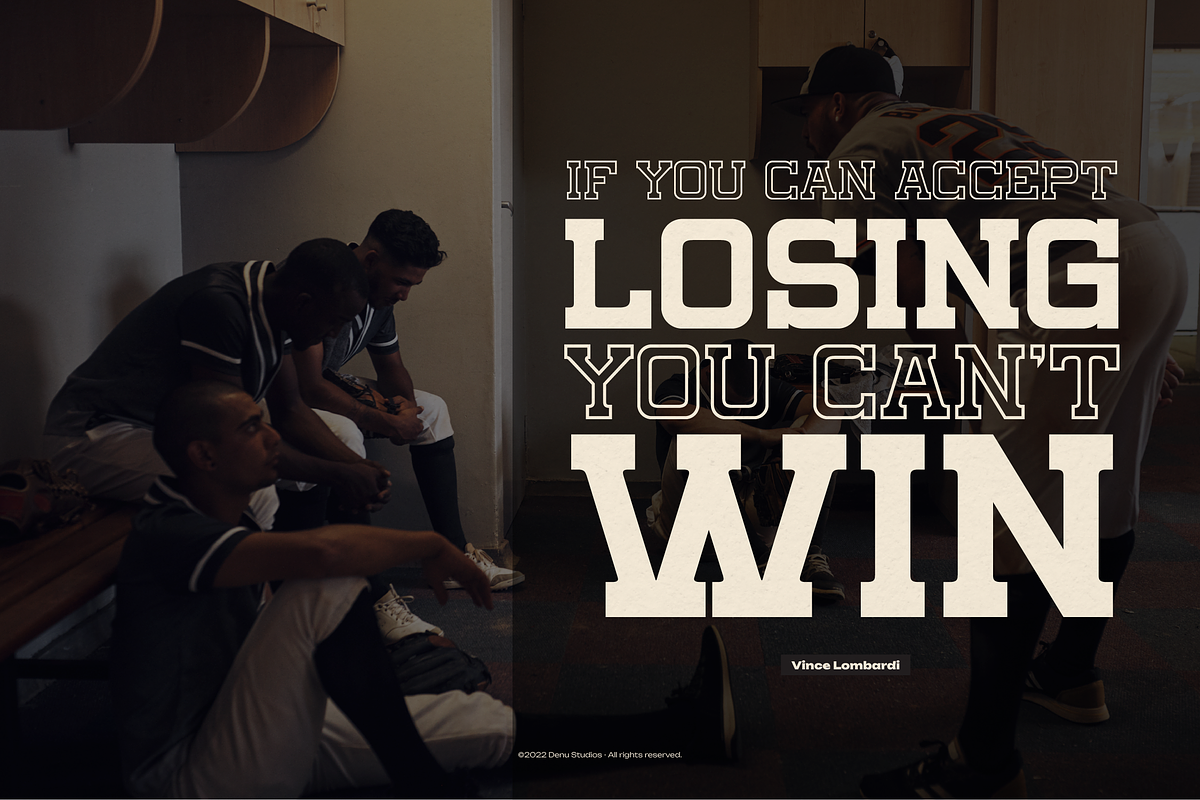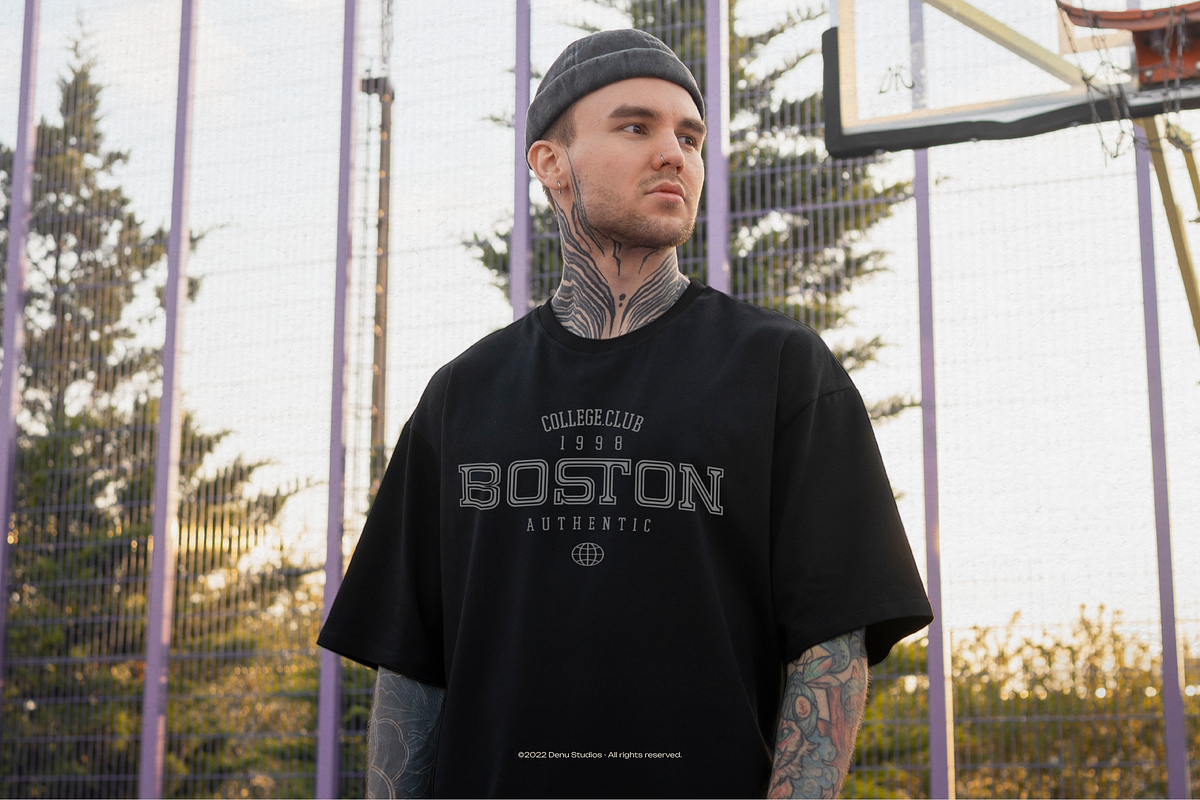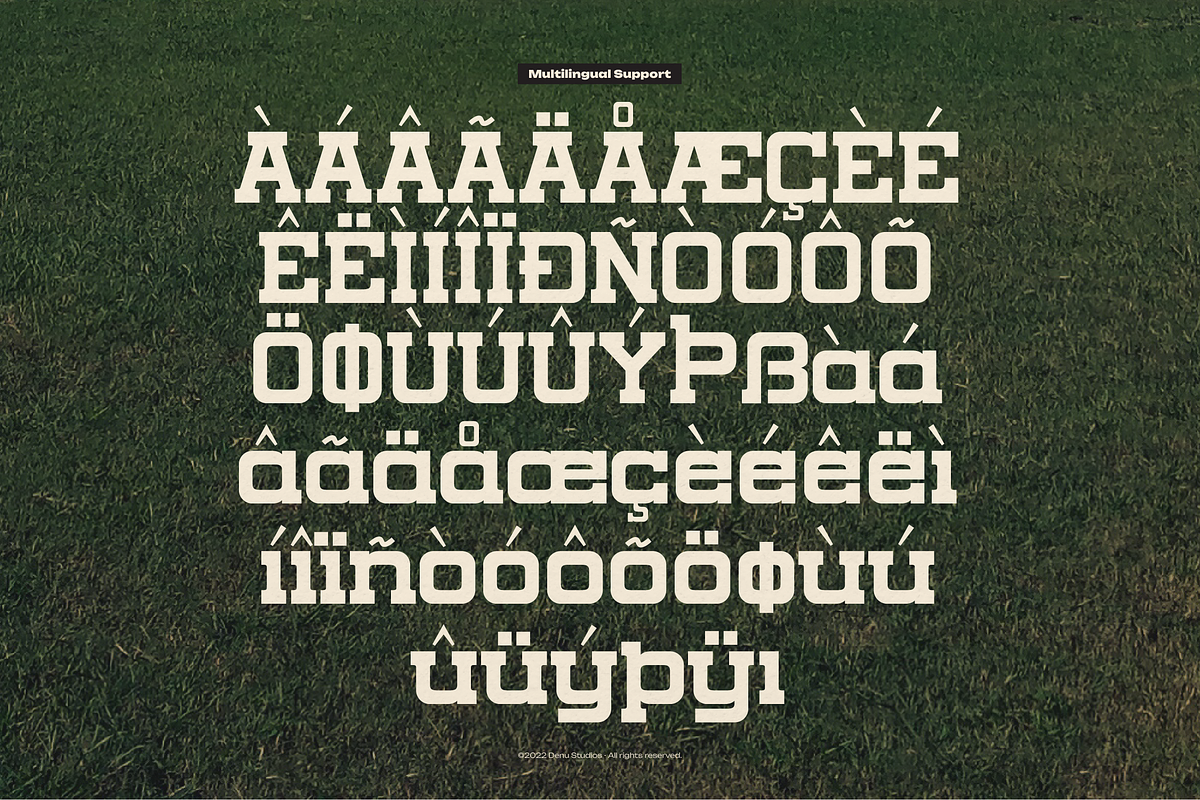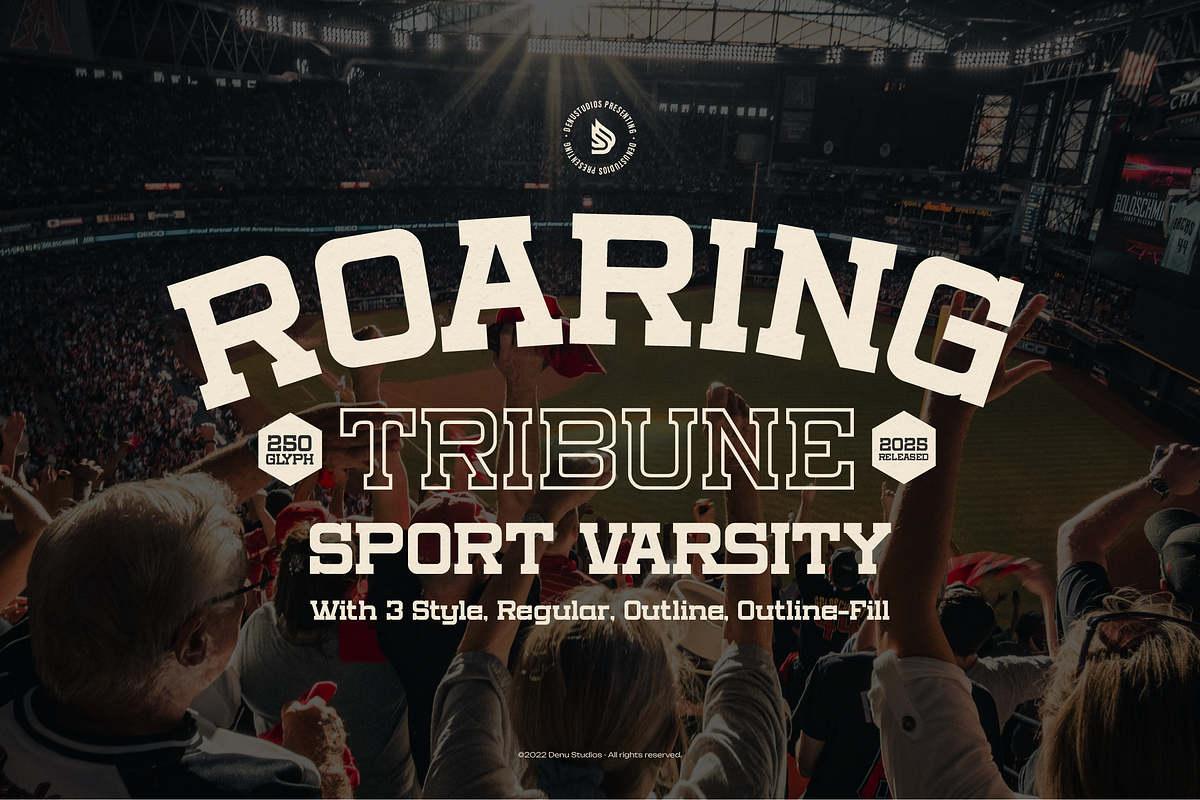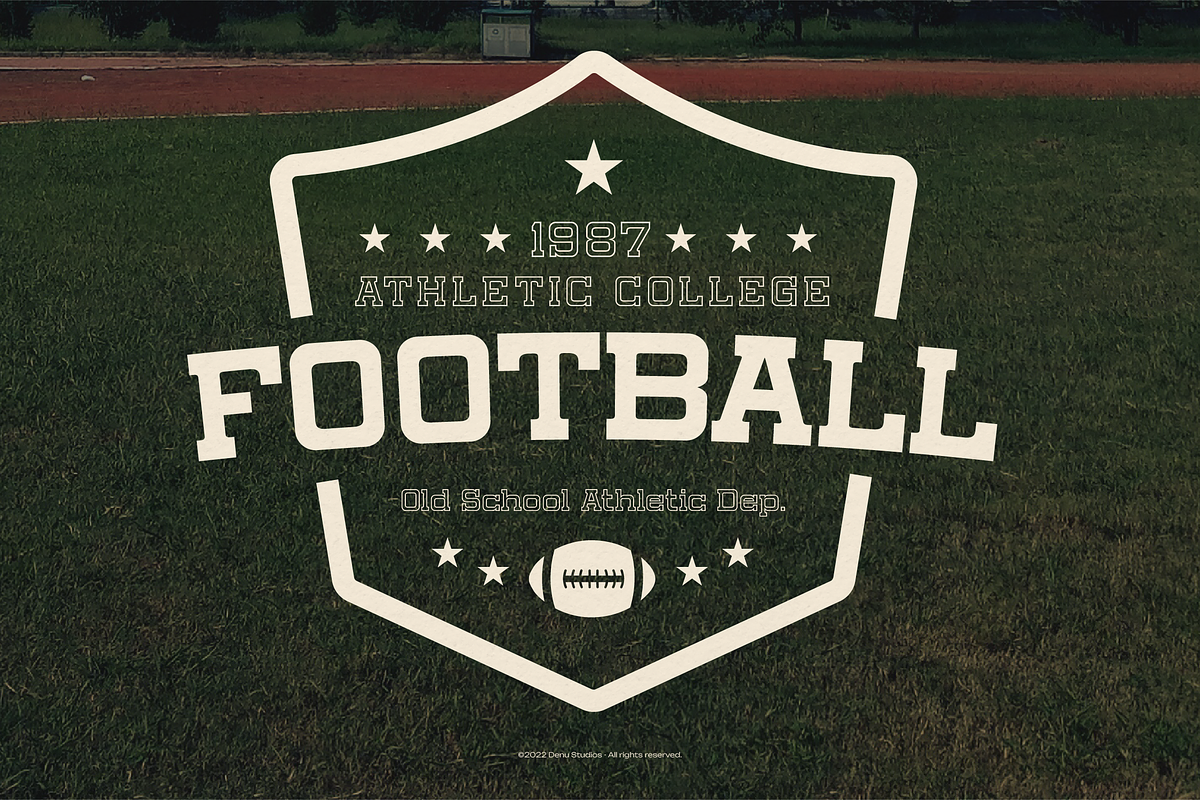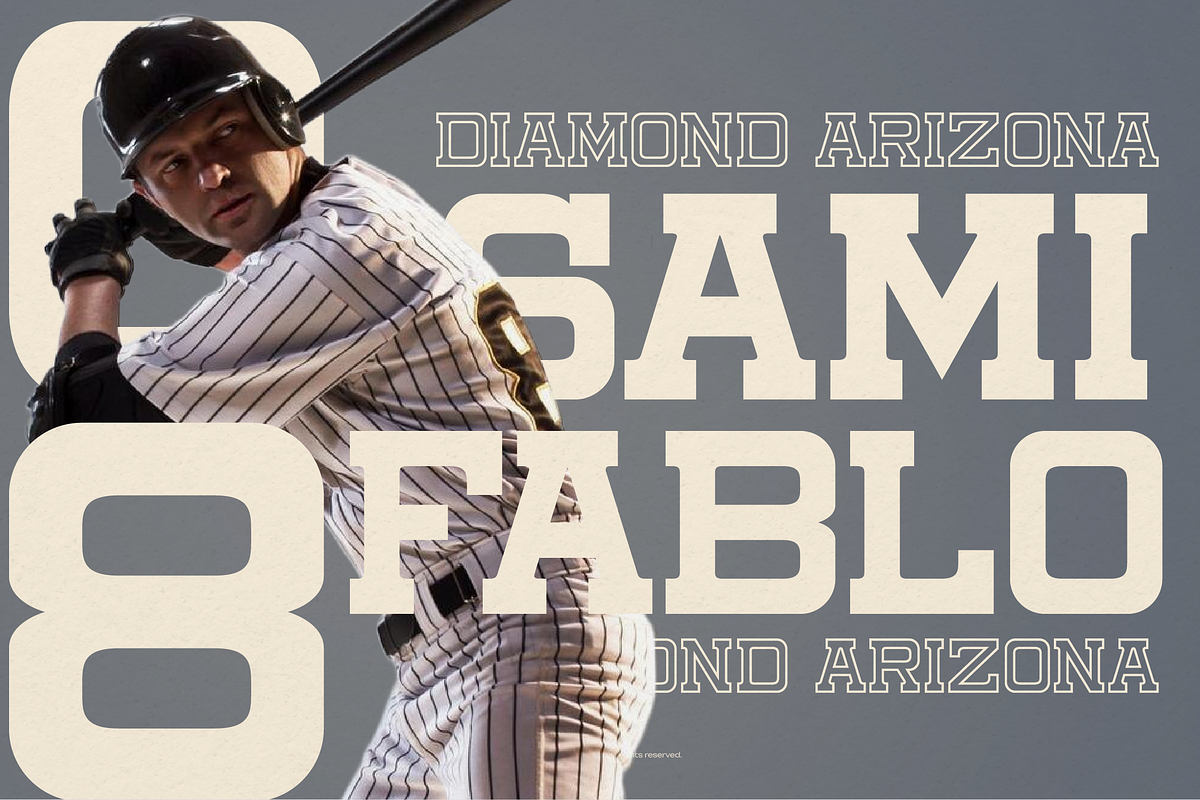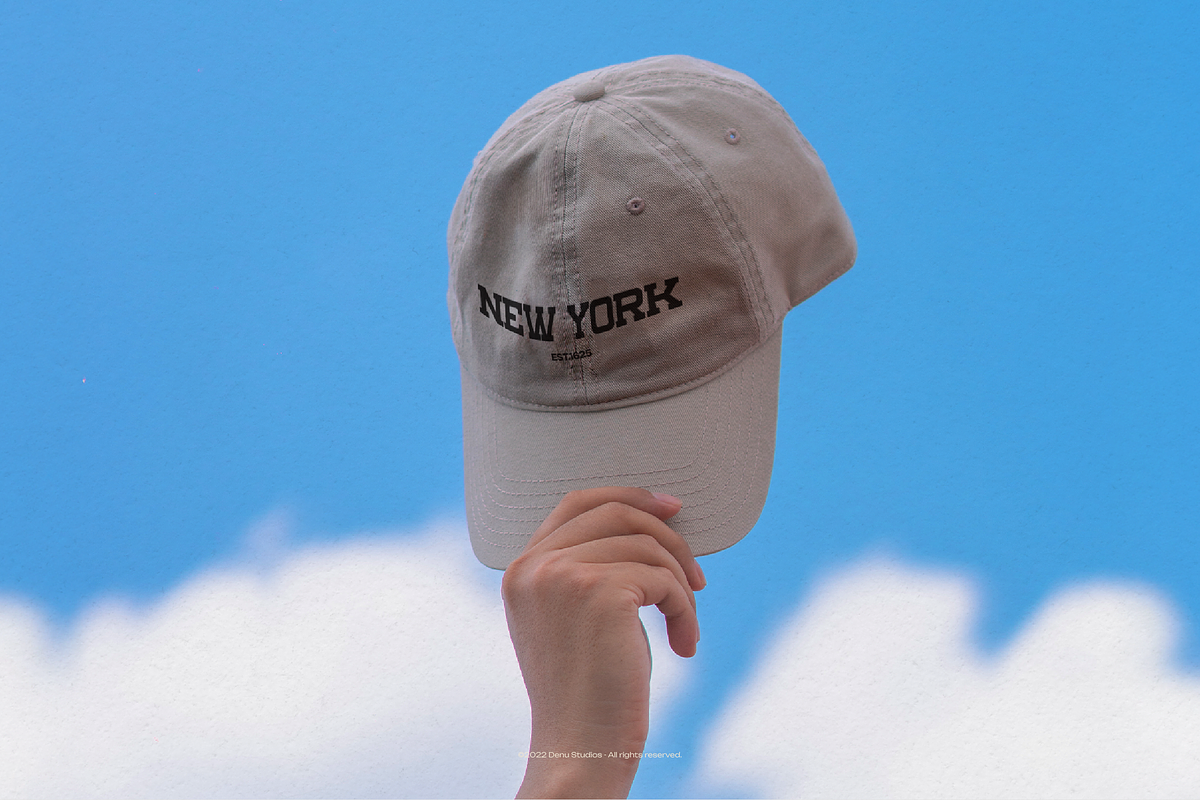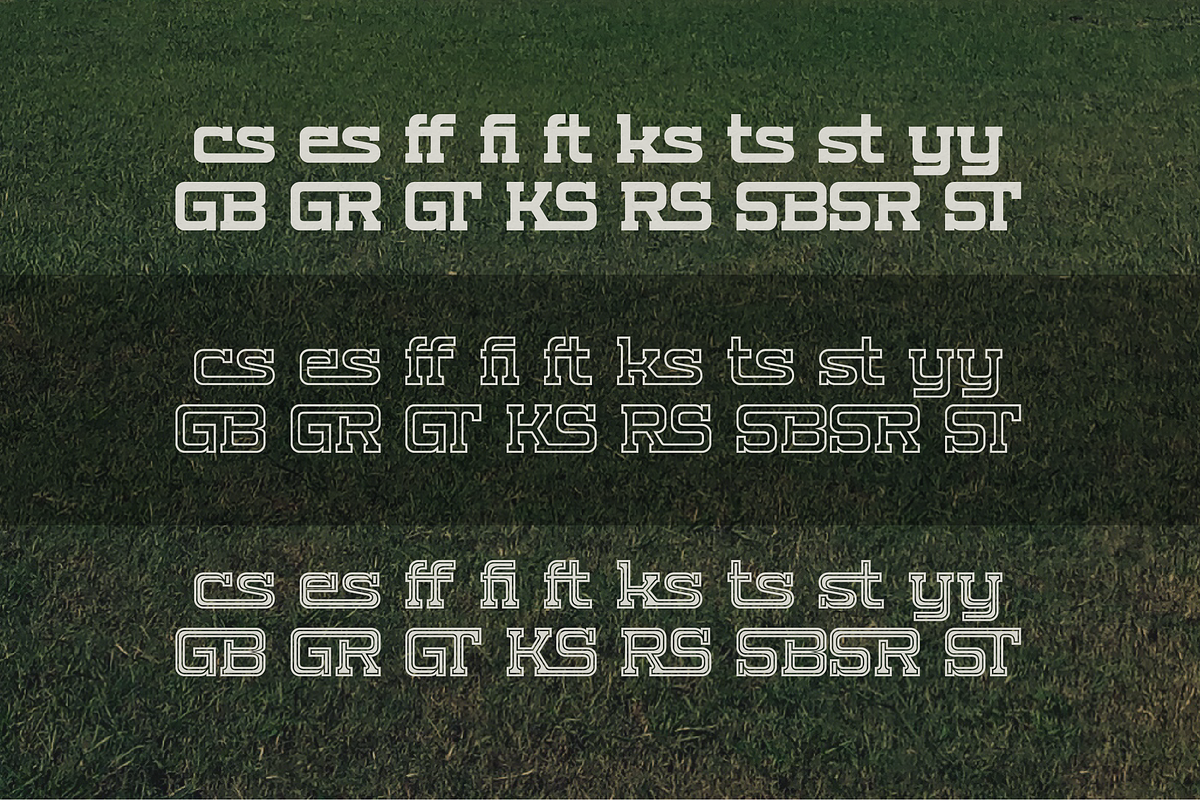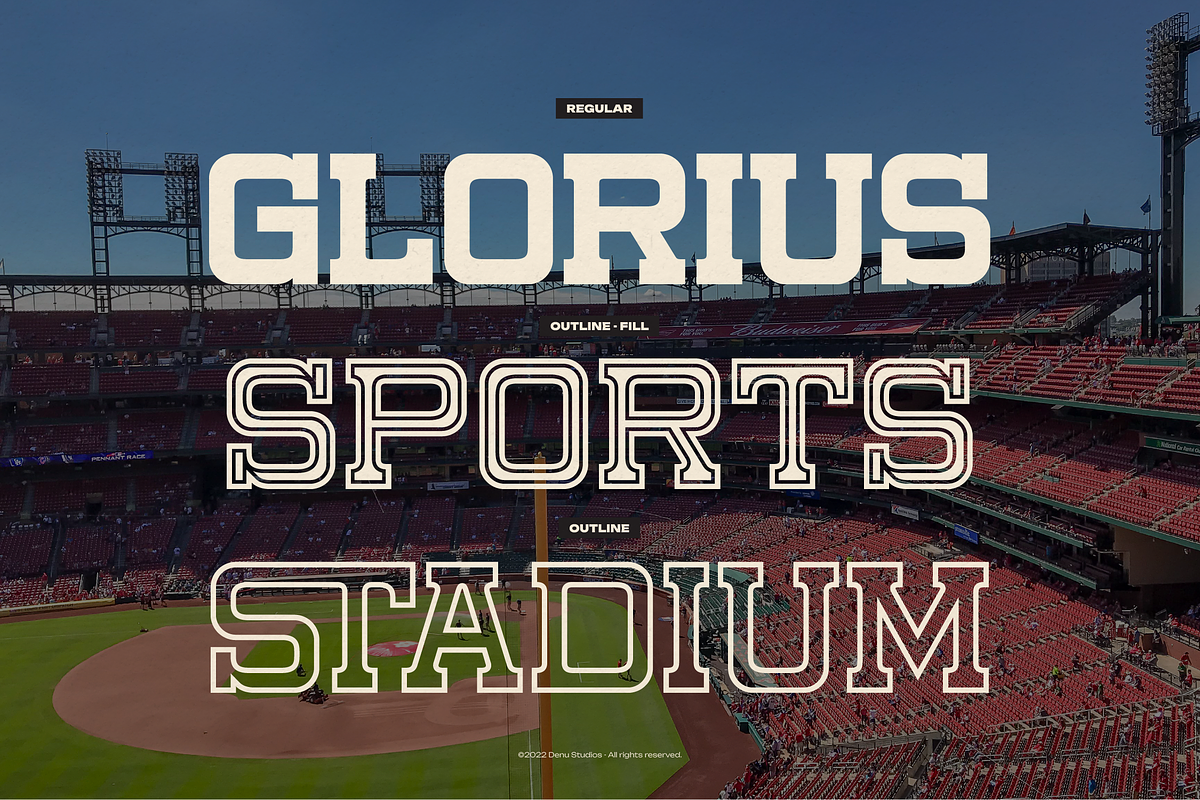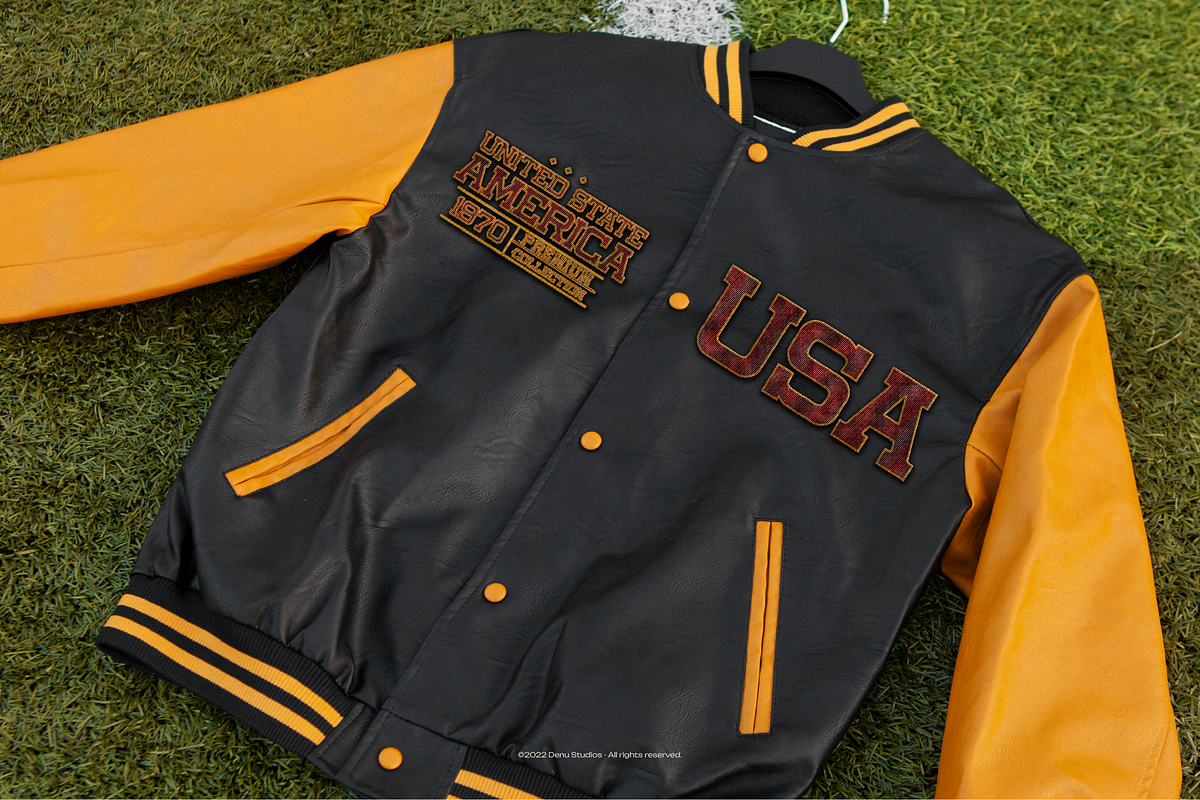
Roaring Tribune | Sport Varsity
Roaring Tribune | Sport Varsity, from Denustudios, suitable for any projects such as: logos, branding projects, homeware designs, product packaging, mugs, quotes, posters, shopping bags, t-shirts, book covers, name card, invitation cards, greeting cards, label, photography, watermark, special events, and all your other lovely projects that need a Sport Varsity taste.